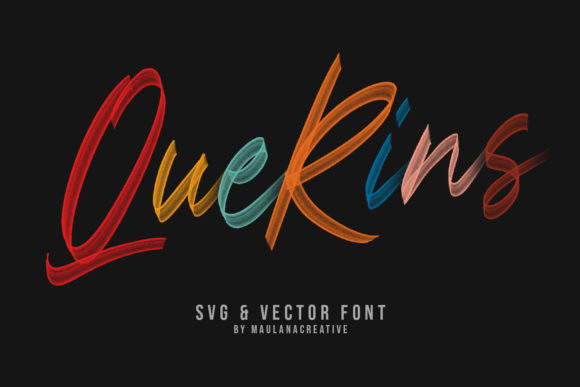
Querins Font
Embark on a typographic journey with Querins Font, an exquisite fusion of brush pen and pencil artistry. This captivating handwritten font family encapsulates charm, authenticity, and a touch of whimsy that will transform your creative visions into tangible masterpieces.
Indulge in the versatility of Querins, seamlessly adaptable to an array of projects, from heartfelt greeting cards and whimsical invitations to eye-catching logos and enchanting branding materials. Unleash your imagination and witness the transformative power of Querins as it adds a personal touch to your digital designs, social media posts, and website headers.
Step into a world of creativity where your words dance with elegance and grace, effortlessly conveying emotions and messages. Querins's enchanting characters, flowing with the organic beauty of hand-lettering, create a visual symphony that captivates and inspires.
Embark on a voyage of self-expression, where Querins becomes your artistic compass, guiding you through uncharted territories of creativity. Its enchanting aura adds a touch of magic to every project, leaving an indelible mark on the hearts and minds of your audience.
Embrace the allure of Querins, a font family that embodies the essence of artistry and imagination. Let your creativity flourish as you craft designs that resonate with authenticity and charm. Explore the limitless possibilities and unlock the true potential of your artistic vision with Querins.